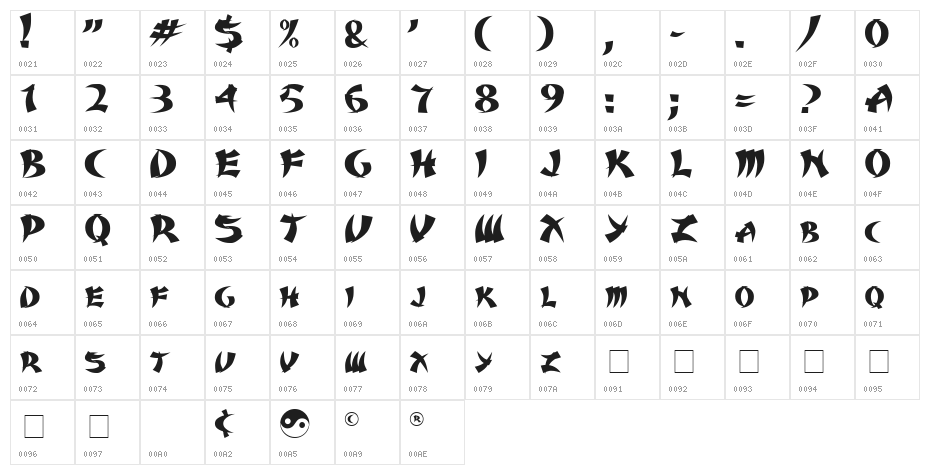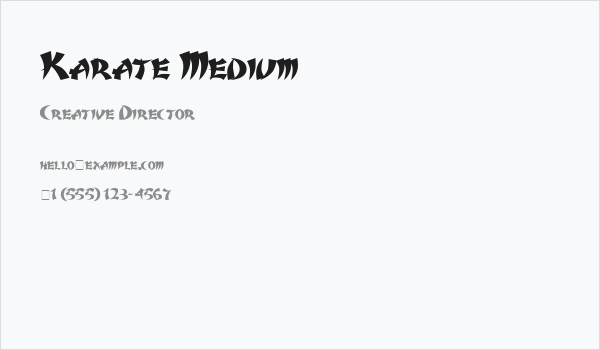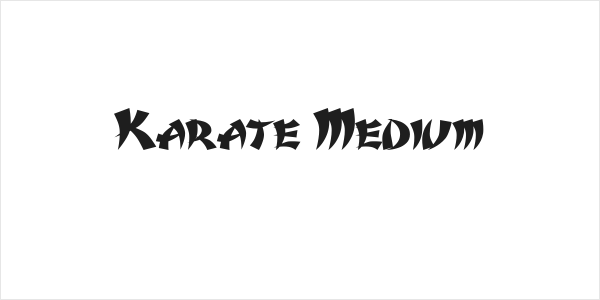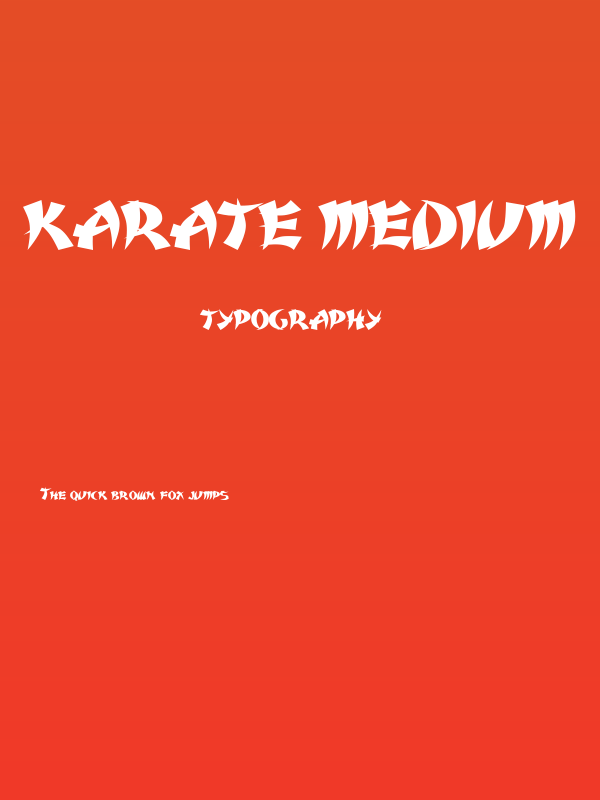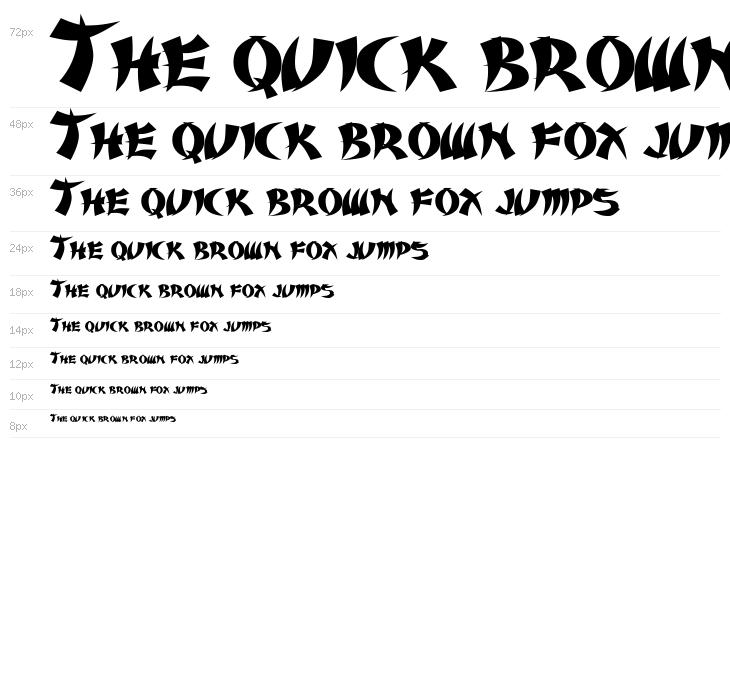
Karate Medium Font
Karate Medium Description
This font features a bold and dynamic style with sharp, angular edges and a distinctively aggressive appearance. The characters are designed with a strong emphasis on geometric shapes, creating a sense of movement and energy. The uppercase and lowercase letters maintain a consistent style, with exaggerated curves and pointed terminals that give the font a unique, martial arts-inspired aesthetic. The numbers and special characters follow the same design principles, ensuring a cohesive look across all glyphs. This font is ideal for projects that require a bold and impactful visual presence.
Proposed ProjectsIdeal for sports branding, action movie posters, martial arts event promotions, and dynamic logo designs.